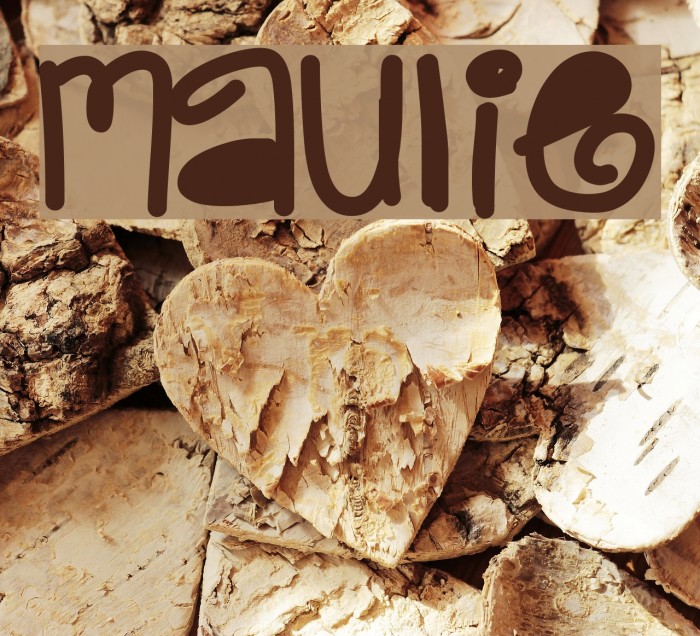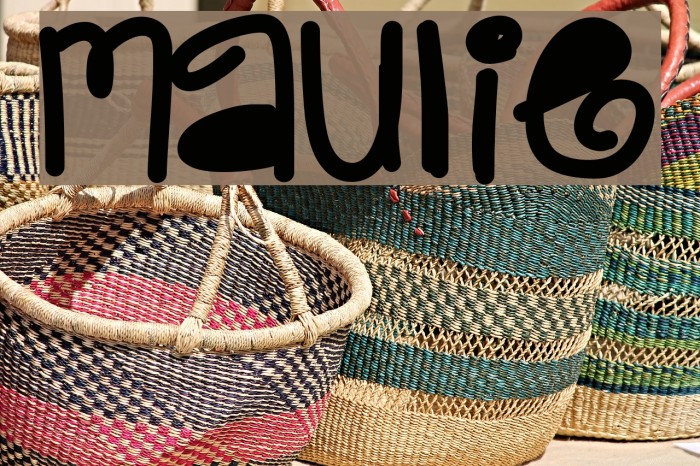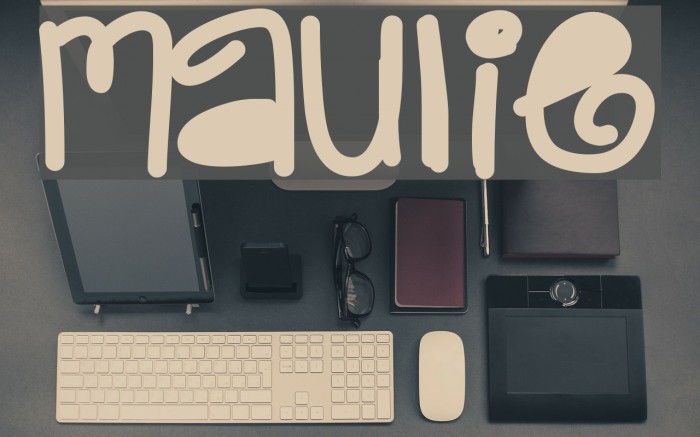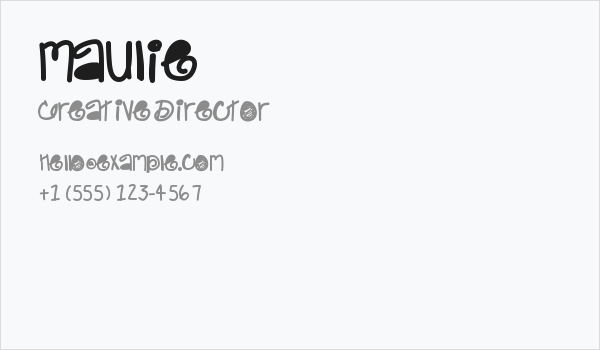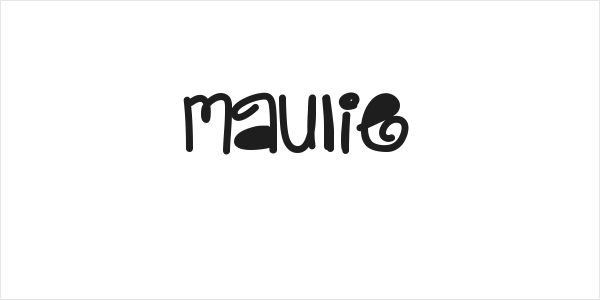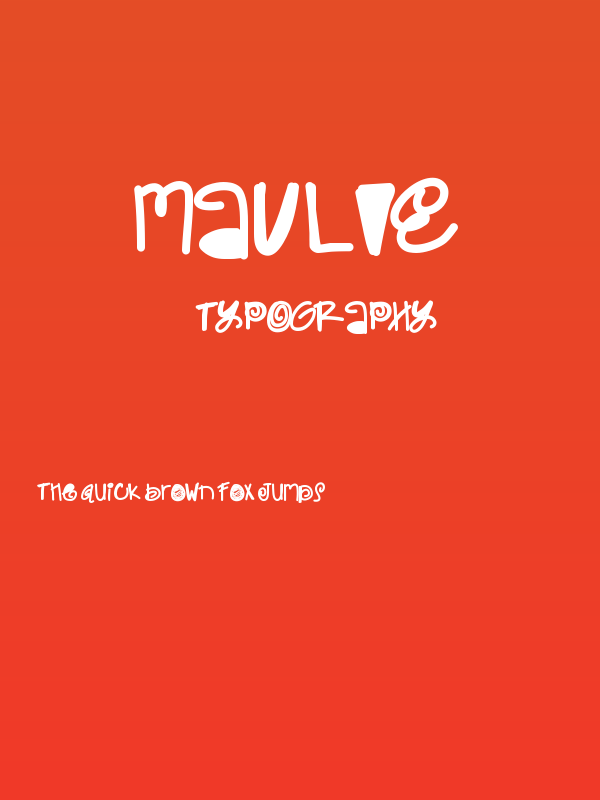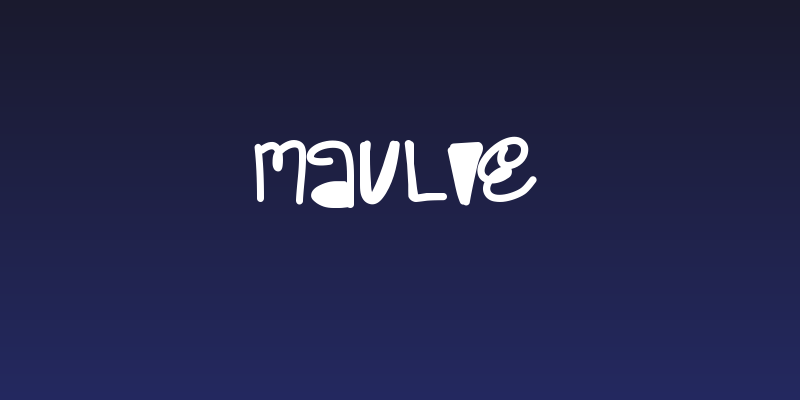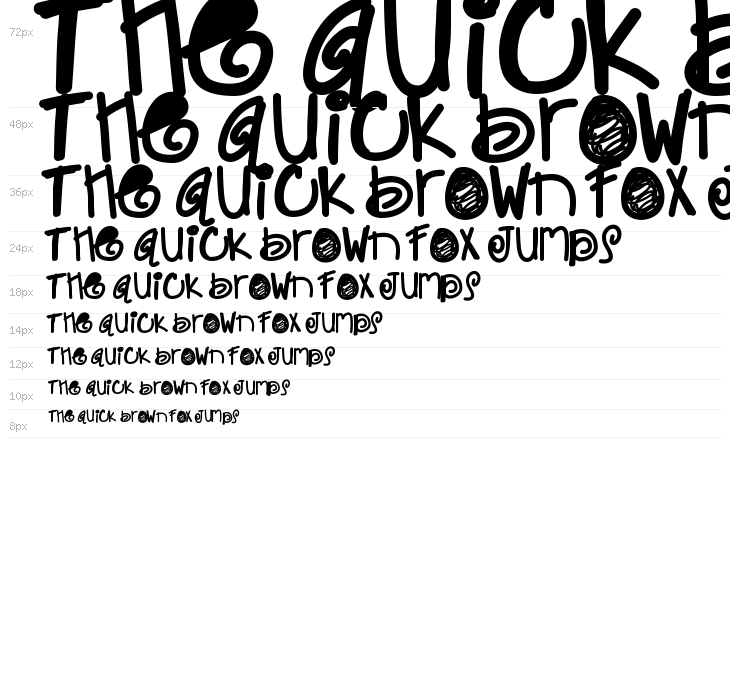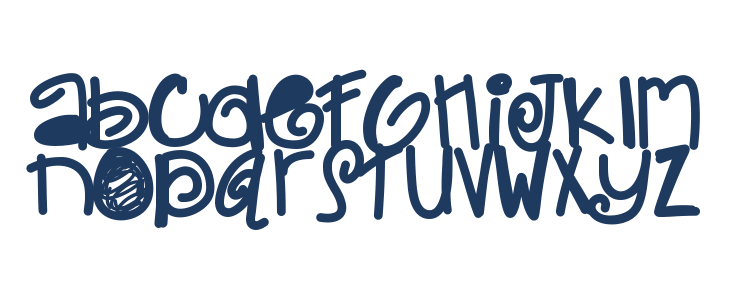
Maulie Font
Maulie Description
This playful and energetic font features a handwritten style with bold, rounded characters. Each letter has a unique, quirky flair, making it stand out with its artistic and informal appearance. The strokes are thick and consistent, giving the font a strong presence. The characters are slightly tilted, adding to the dynamic and lively feel. The numbers and special characters maintain the same playful style, ensuring a cohesive look across all text elements. This font is perfect for projects that require a fun and casual touch.